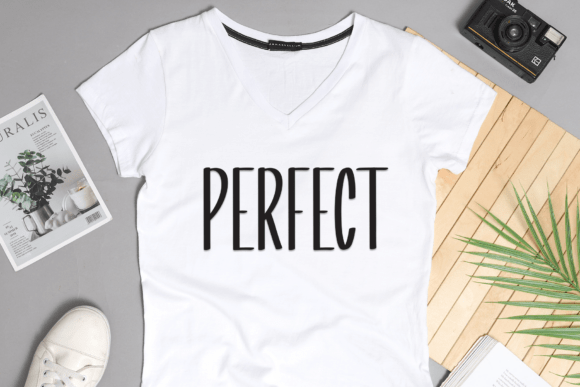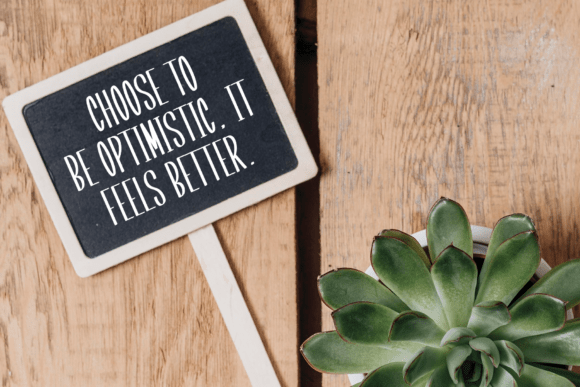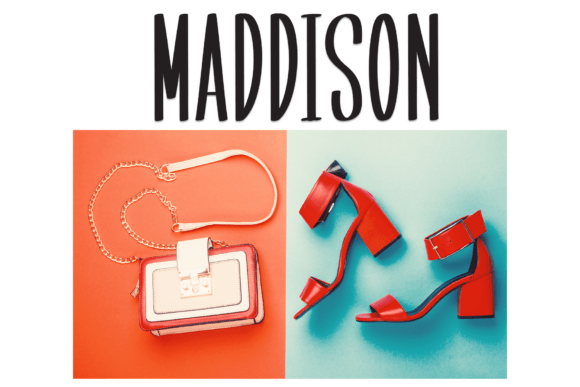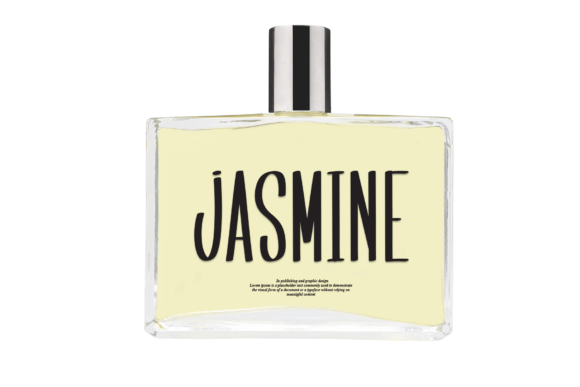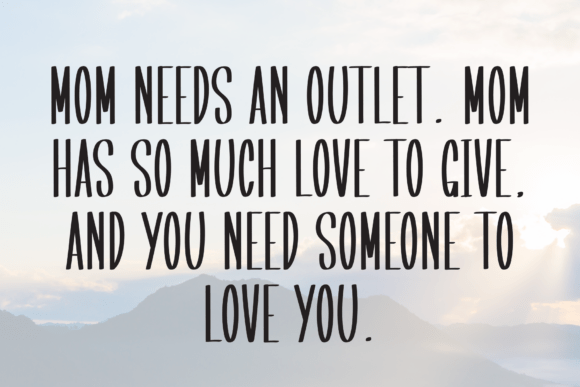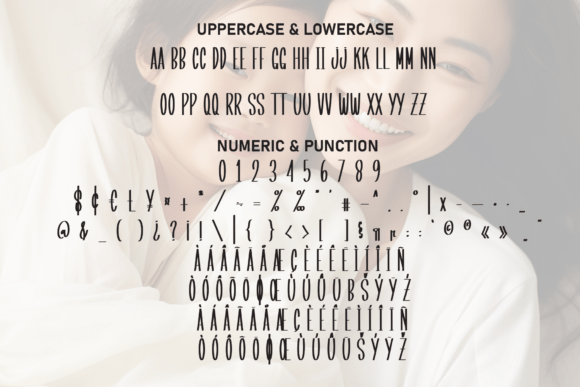
Introduction to Mommy Font
Do you remember the moment you found that perfect font for your design project? The one that made all the difference and took your creative endeavor to the next level? For designers, discovering a high-quality font can be a game-changer. It’s a moment of pure joy, like finding a treasure trove of inspiration. And that’s exactly what we’re excited to share with you – the magical world of Mommy Font, a design resource that will elevate your creative project to new heights.
With its unique blend of charm and curiosity, Mommy Font is more than just a typeface – it’s an experience. Whether you’re working on a wedding invitation, a greeting card, or a complex design, this extraordinary font will whisper a beguiling allure that will captivate your audience. And the best part? It’s available for a free download, complete with a transparent background, making it the perfect addition to any design project.
Key Features of Mommy Font
- High-quality design: Mommy Font is a premium font designed for creative projects, offering a unique and elegant look.
- Transparent background: Mommy Font features a transparent background, allowing for easy integration into various design elements.
- Unique characteristics: Mommy Font features a distinctive, handwritten style with subtle flourishes, making it perfect for adding a personal touch to designs.
- Perfect for design projects: With its high-quality design and transparent background, Mommy Font is an ideal resource for designers working on creative projects.
Honest Review: Mommy Font
I recently stumbled upon the Mommy Font, a free download that’s quickly become a staple in my design resource arsenal. This font is perfect for any creative project that requires a playful, yet elegant touch.
- ✨ High quality design: The Mommy Font is well-crafted and displays a level of sophistication that’s rare in free fonts.
- ✨ Transparent background: This font’s transparent background makes it easy to layer over other designs and create a cohesive look.
- ✨ Versatility: The Mommy Font can be used for a variety of projects, from children’s products to women’s lifestyle brands.
- ⚠️ Limited language support: While the font is well-designed, it may not support as many languages as some designers might need.
- ⚠️ Limited customization options: The Mommy Font is a single style, which may limit its use in projects that require multiple font styles.
Overall, I’m impressed with the Mommy Font’s design and versatility. While it has some limitations, it’s a great resource for designers looking for a high-quality, free font for their creative projects.
Tips for Getting the Most Out of Mommy Font
For the best results, use Mommy Font with a transparent background to ensure your design stands out. Experiment with different font sizes and styles to add visual interest to your project.
Mommy Font is perfect for a variety of creative projects, including invitations, party decorations, and social media graphics. Its high-quality design and transparent background make it a versatile and effective design resource.